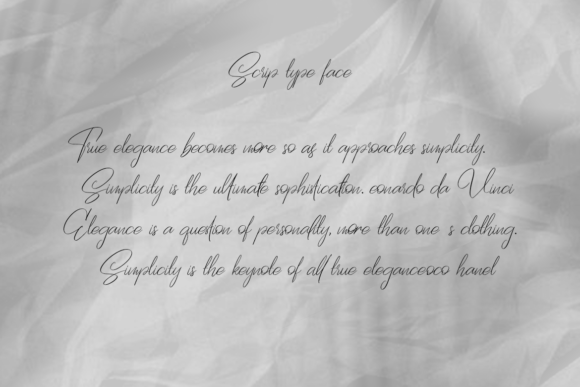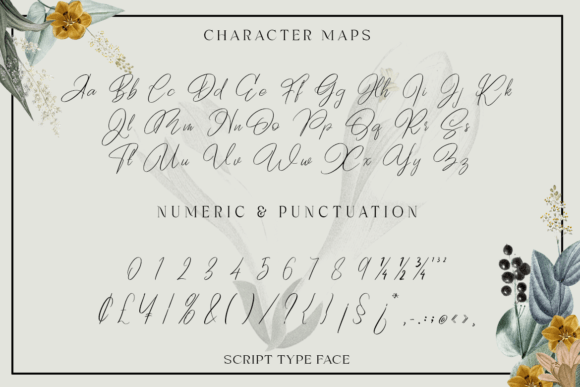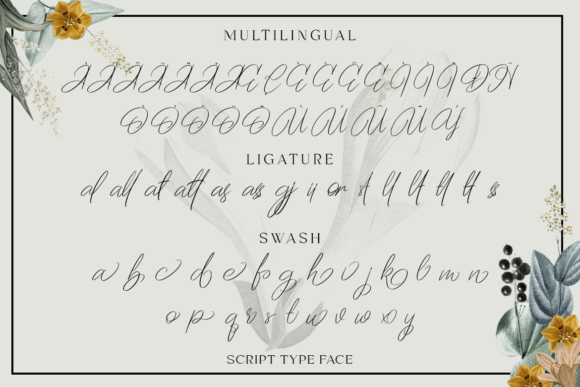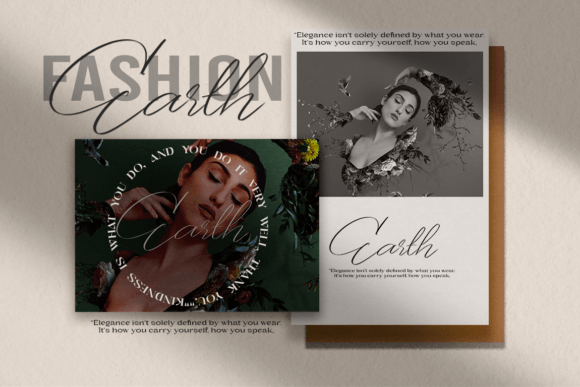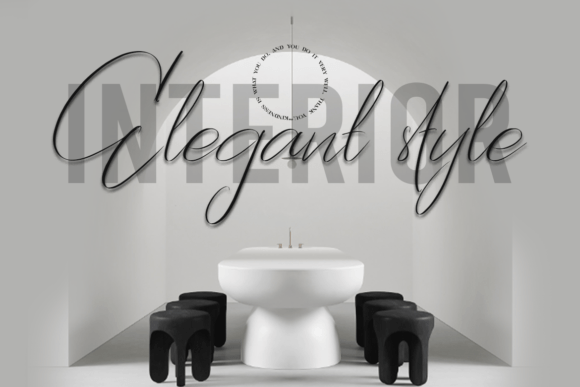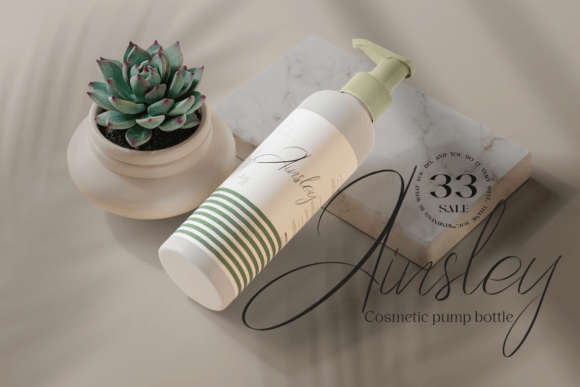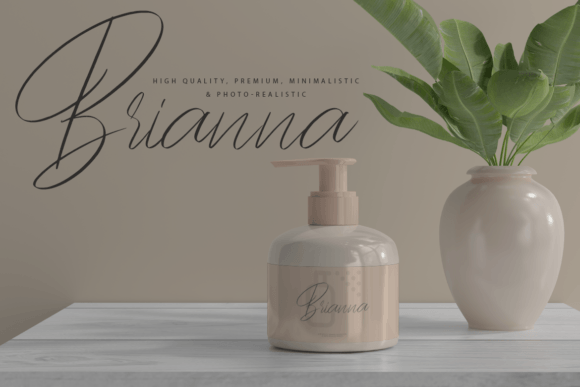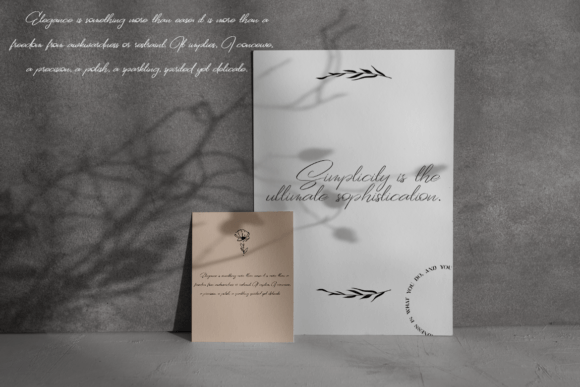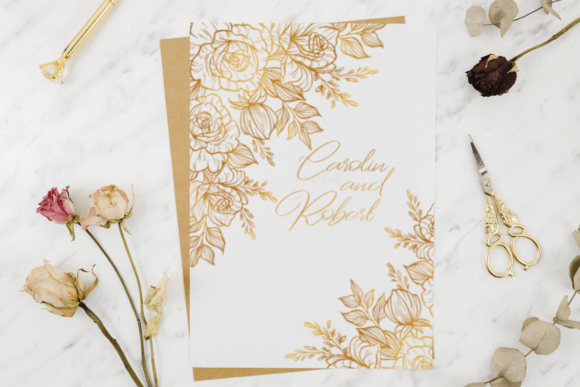
Symphony Font
About Symphony Font
“Symphony” is a delicate, elegant, and flowing handwritten font that exudes a sense of grace and sophistication. With its beautifully balanced characters, this font is a versatile choice that can enhance a wide variety of design projects. Whether you’re working on branding, invitations, packaging, or any other creative endeavor, “Symphony” has the potential to bring your ideas to life.
The charm of “Symphony” lies in its ability to convey a sense of elegance and timeless beauty. Its handwritten style features graceful and well-crafted letterforms that create a visually captivating and sophisticated aesthetic. This font can seamlessly integrate into your design projects, adding a touch of refinement and charm.
One of the standout features of “Symphony” is its versatility. It is well-suited for a wide pool of design contexts, making it a valuable asset for creative work. The font’s delicate and flowing appearance adds a sense of grace to your text.
Furthermore, “Symphony” is PUA encoded, which means you can easily access all of its glyphs and swashes. This feature allows you to customize and embellish your text, giving you greater creative freedom in your design projects.
When you incorporate “Symphony” into your designs, you can expect your creations to radiate elegance and sophistication. This font has the power to make your designs come alive, elevating them to a level of visual excellence.
In summary, “Symphony” is more than just a font; it’s a design asset that can enhance your creative projects with its delicate and elegant handwritten style. Its versatility and timeless beauty make it a valuable addition to your design toolkit. You can confidently use “Symphony” to add a touch of refinement and grace to any project, as it has the potential to make your designs truly shine!